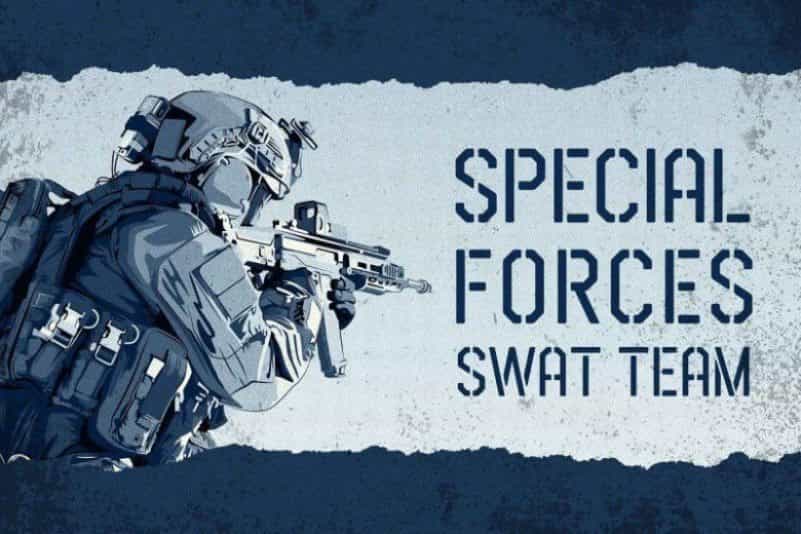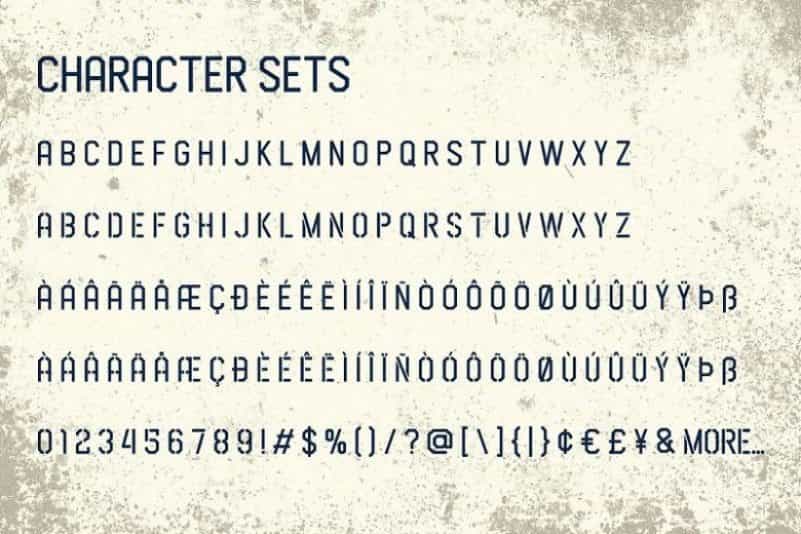
Airborne 86 is a Sans Serif type font design that may depict a military theme and was first developed by a team that I was leading; it needed a font that would be useful for any military project. This font is best for wallpaper, pattern fills, web page backgrounds and surface texture.